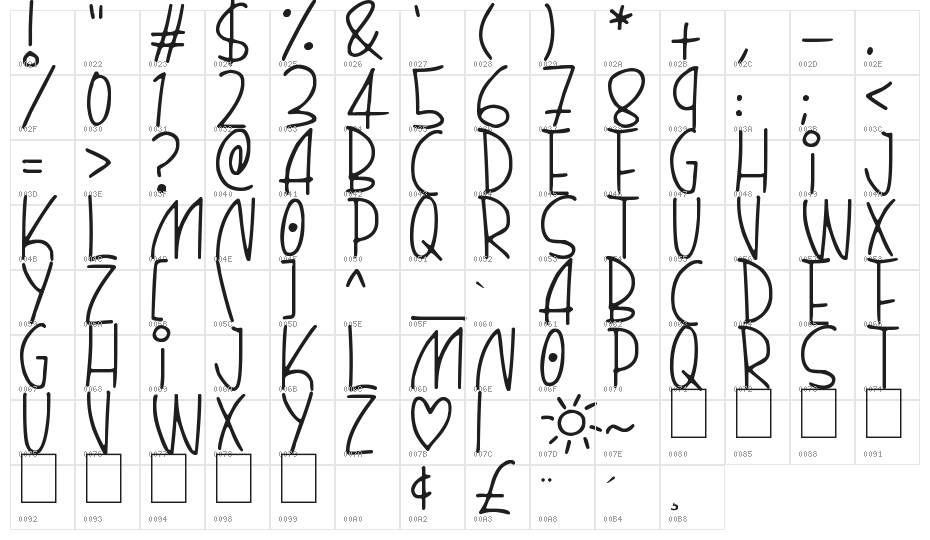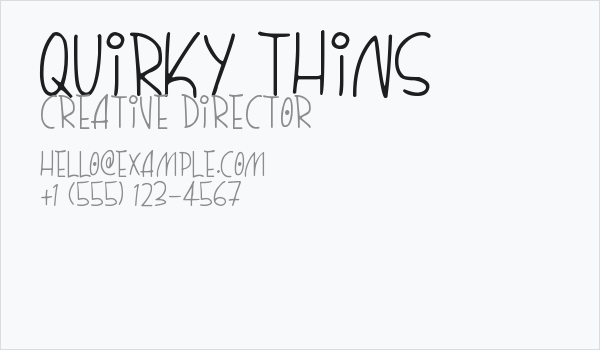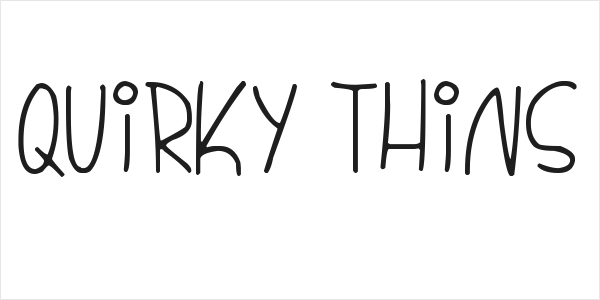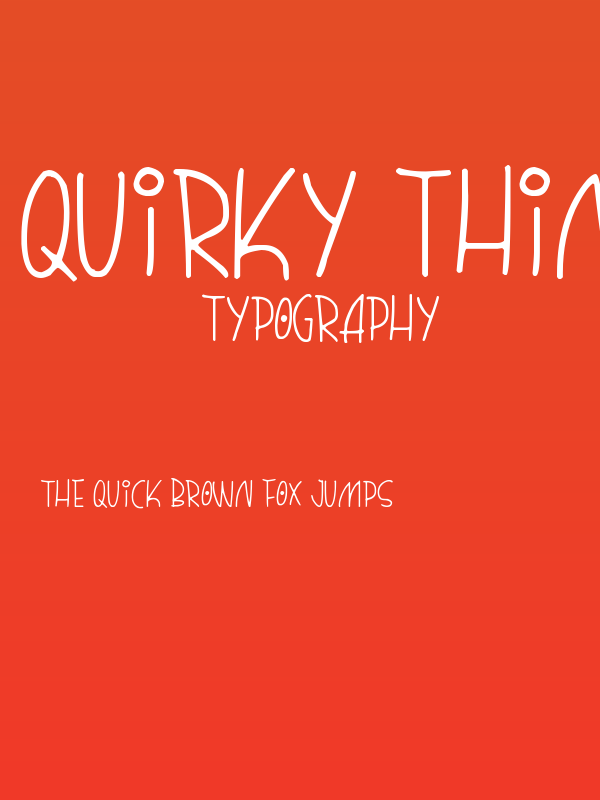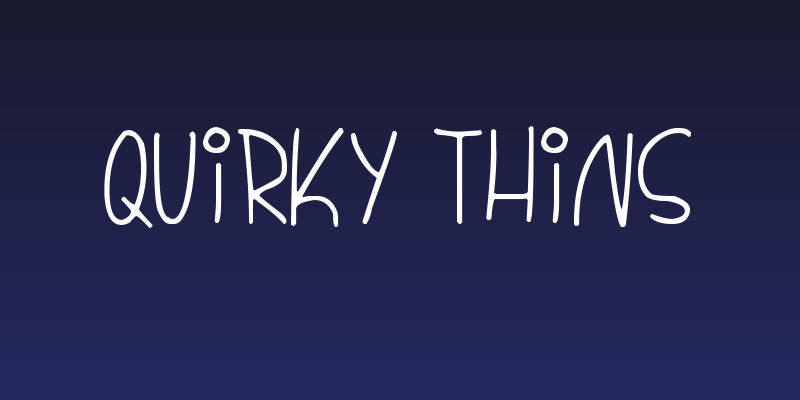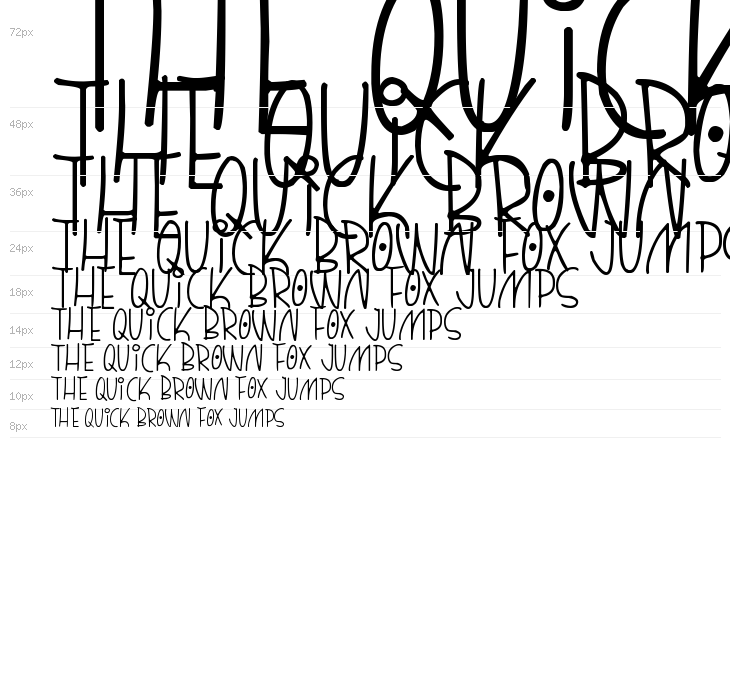
Quirky Thins Font
Quirky Thins Description
This playful and whimsical font features thin, elongated characters with a hand-drawn appearance. The letters are slightly irregular, adding a quirky and informal touch. The uppercase and lowercase letters maintain a consistent style, with rounded edges and a casual flow. The numbers are similarly styled, with a unique charm that complements the overall aesthetic. Special characters are creatively designed, enhancing the font's playful nature. This font is perfect for projects that require a fun and lighthearted feel, such as children's books, greeting cards, or creative branding.
Overall StyleWhimsical
Use CaseHeadlines, Logos, Creative projects
Proposed ProjectsIdeal for children's books, greeting cards, creative branding, and playful designs.